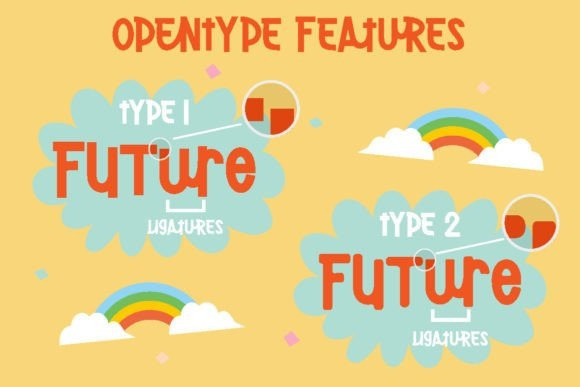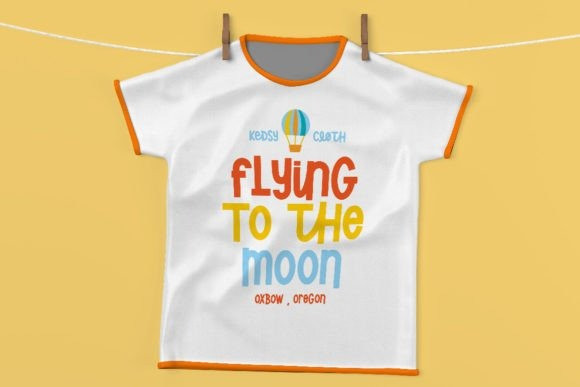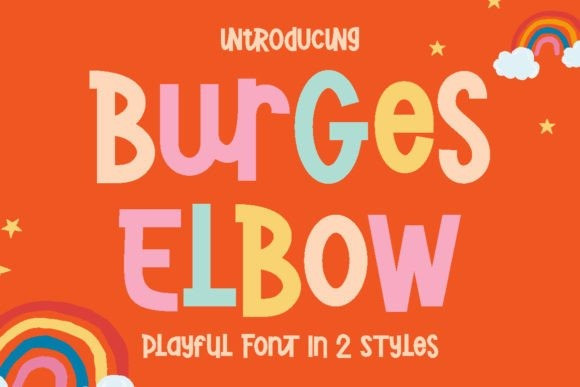
Burges Elbow Font
Burges Elbow Font – Playful Font In 2 Styles. Created with the idea of bringing happiness and joy to any project, This is a perfect choice for those who want to add a touch of playfulness to their design.
To use Burges Elbow to its full potential, it would be great for designs aimed towards children such as book covers, posters, and flyers. Its playful and quirky nature would also make it a great choice for branding aimed at a younger audience or products that want to add a sense of fun and whimsy.